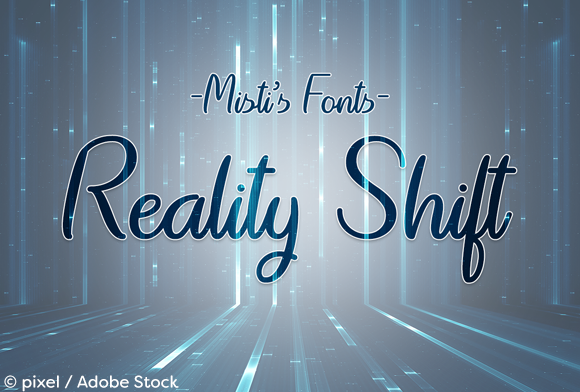
Immerse yourself in the captivating world of Reality Shift Font, a sophisticated and alluring script family created by the talented hand of Misti. This remarkable font embodies elegance and grace, seamlessly blending classic charm with a modern twist to elevate your creative projects to new heights.
Reality Shift's fluid strokes and graceful curves exude a sense of effortless beauty, adding a touch of timeless sophistication to your designs. The meticulously crafted characters dance across the page, inviting you on a journey of self-expression and artistic exploration.
Unleash your creativity with Reality Shift's unparalleled versatility, making it the perfect choice for a wide spectrum of projects. Whether you seek to create stunning logos that leave a lasting impression, captivating product labels that demand attention, or eye-catching advertisements that ignite imaginations, Reality Shift stands as your steadfast companion, ready to transform your visions into reality.
Transport yourself to a realm of artistic enchantment with Reality Shift, where every letter, every word, and every design element embodies the essence of artistry and innovation. Experience the joy of crafting visually captivating content that resonates with audiences and leaves an indelible mark on their minds.
Reality Shift is not just a font; it's an experience, an invitation to unlock the boundless possibilities that lie within your imagination. Embrace the beauty of Reality Shift today and embark on an artistic odyssey that will redefine your creative boundaries.